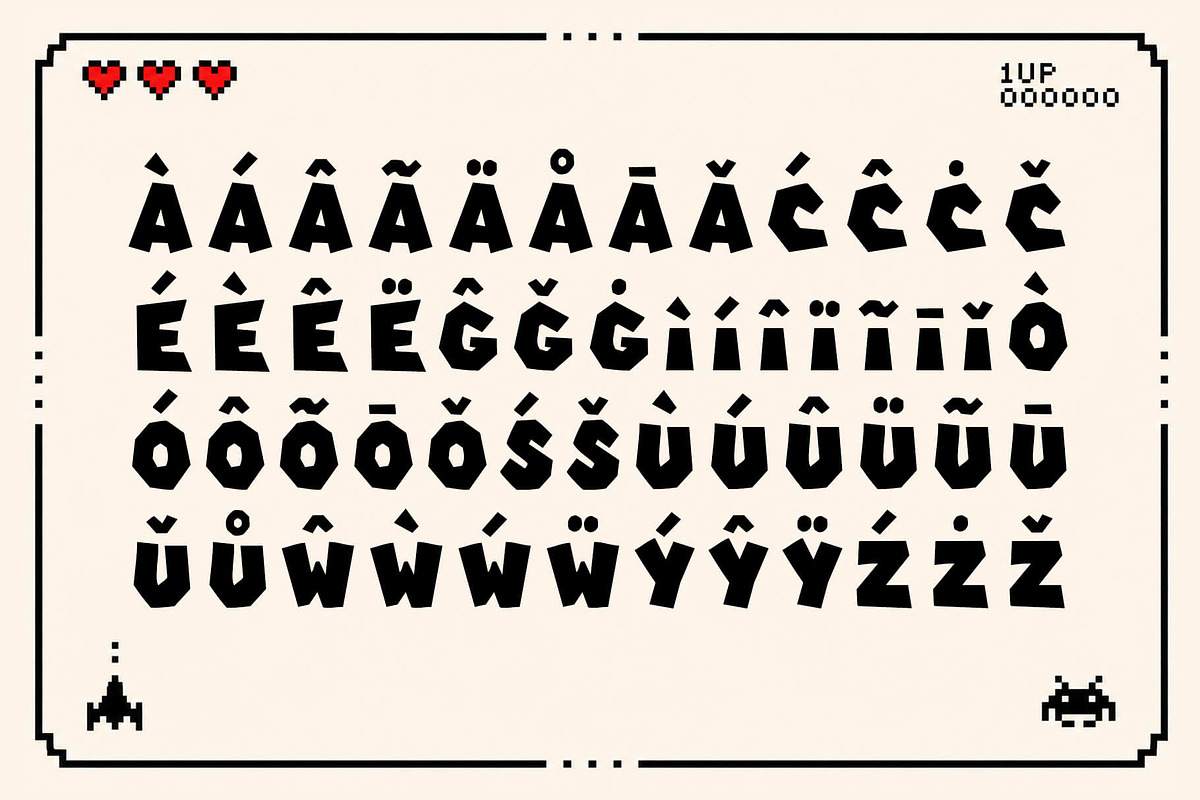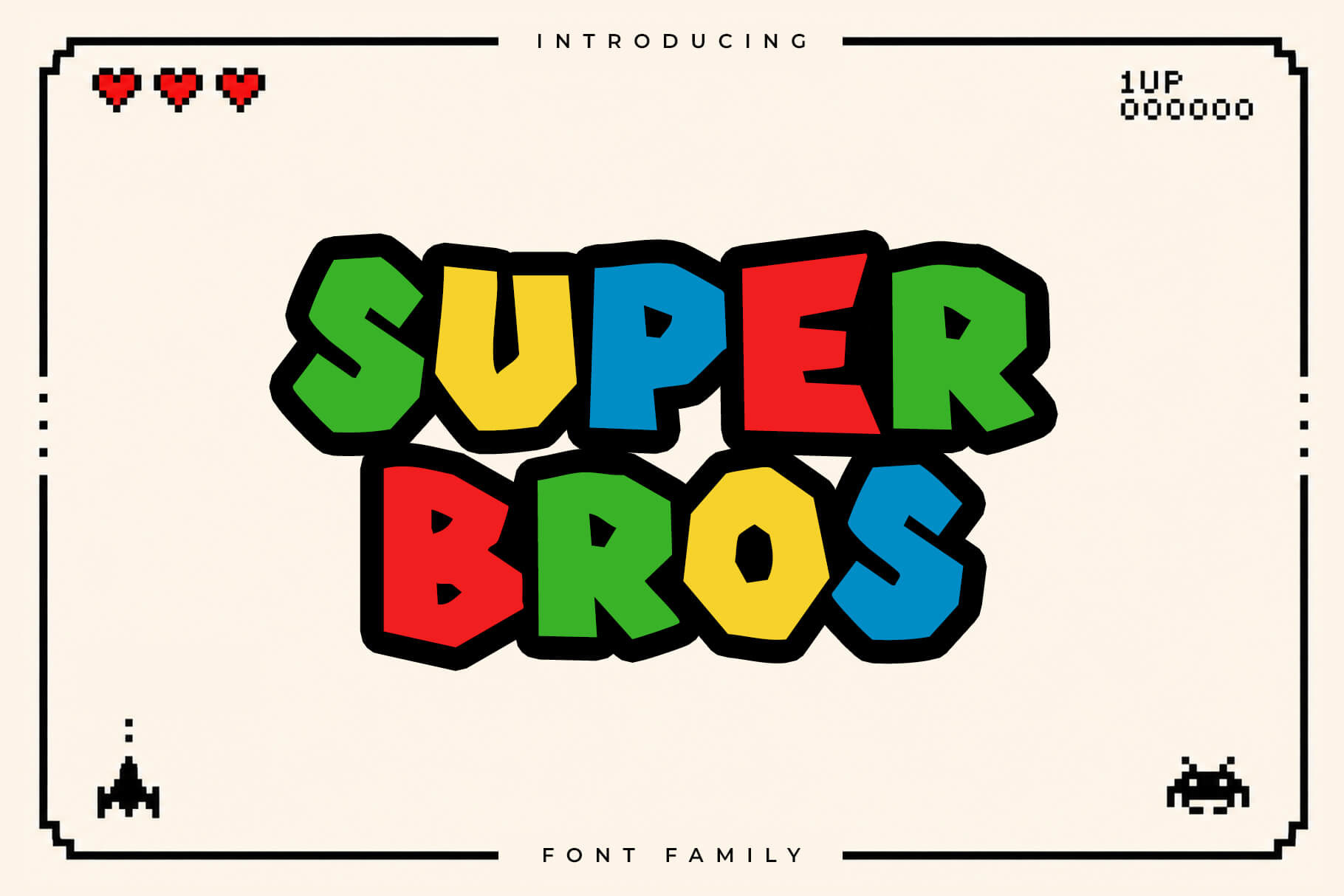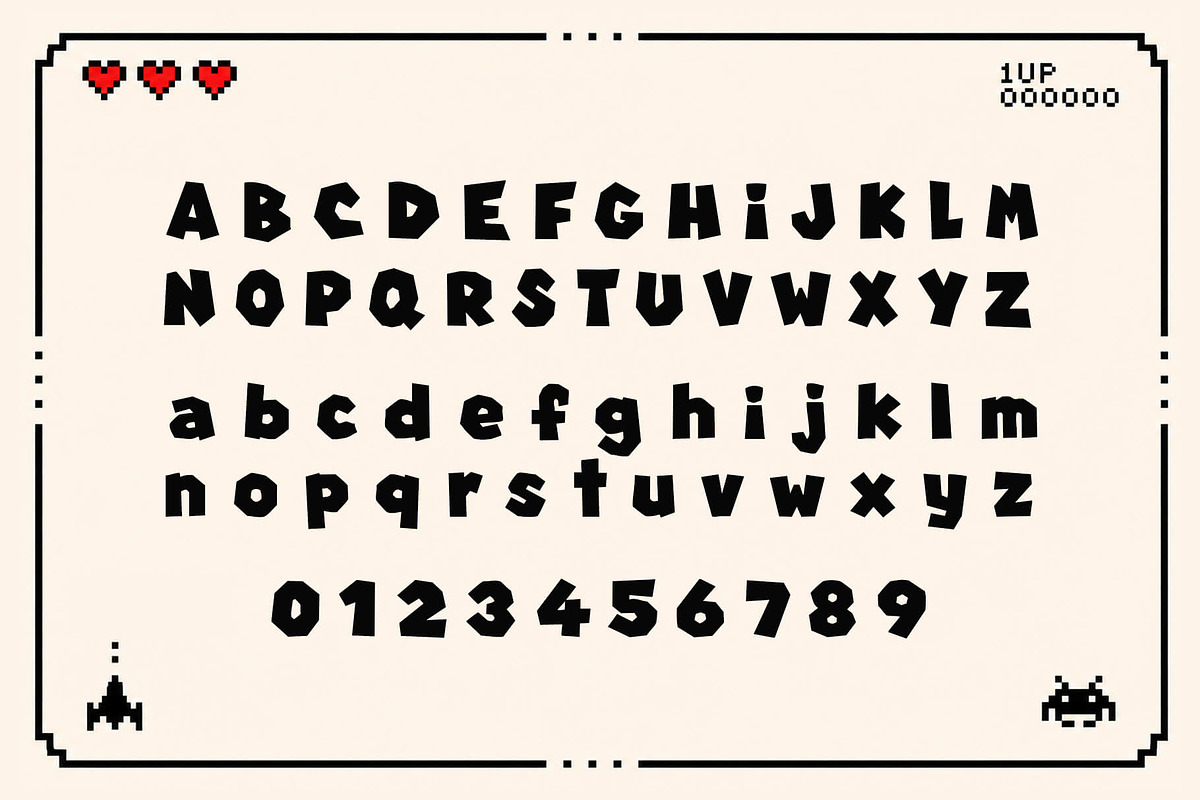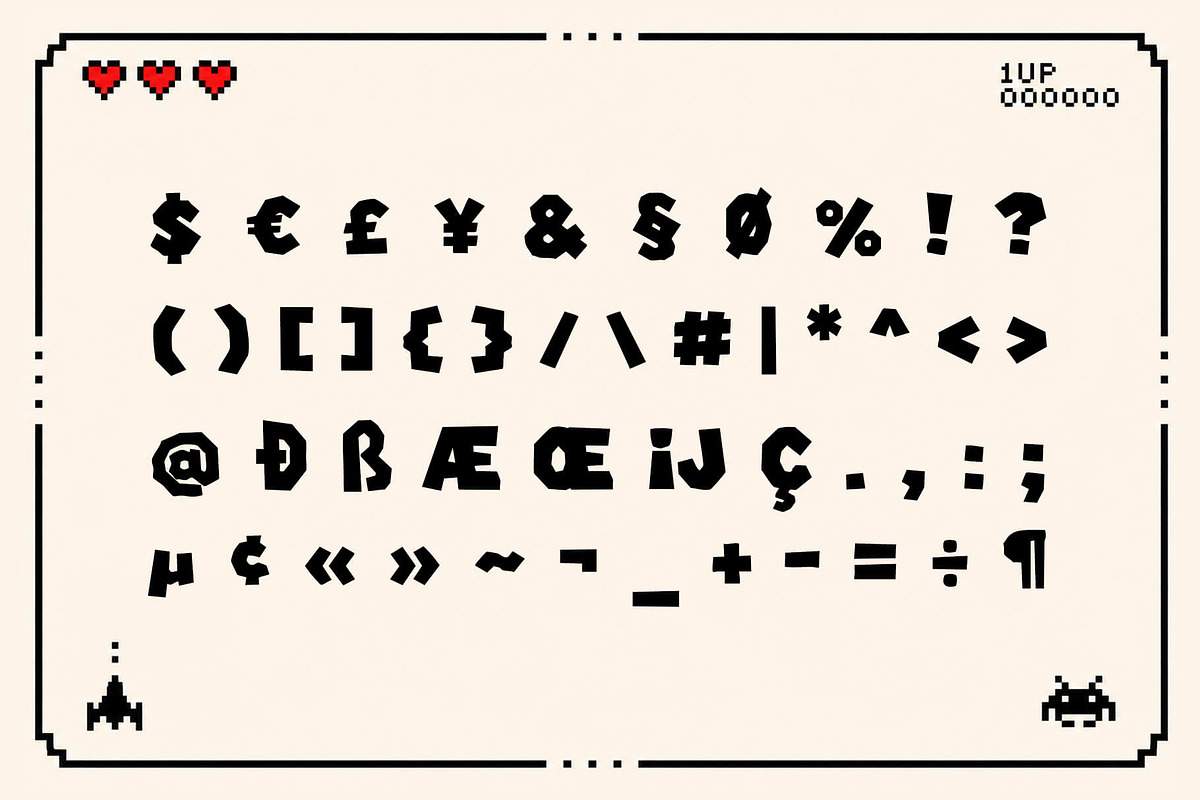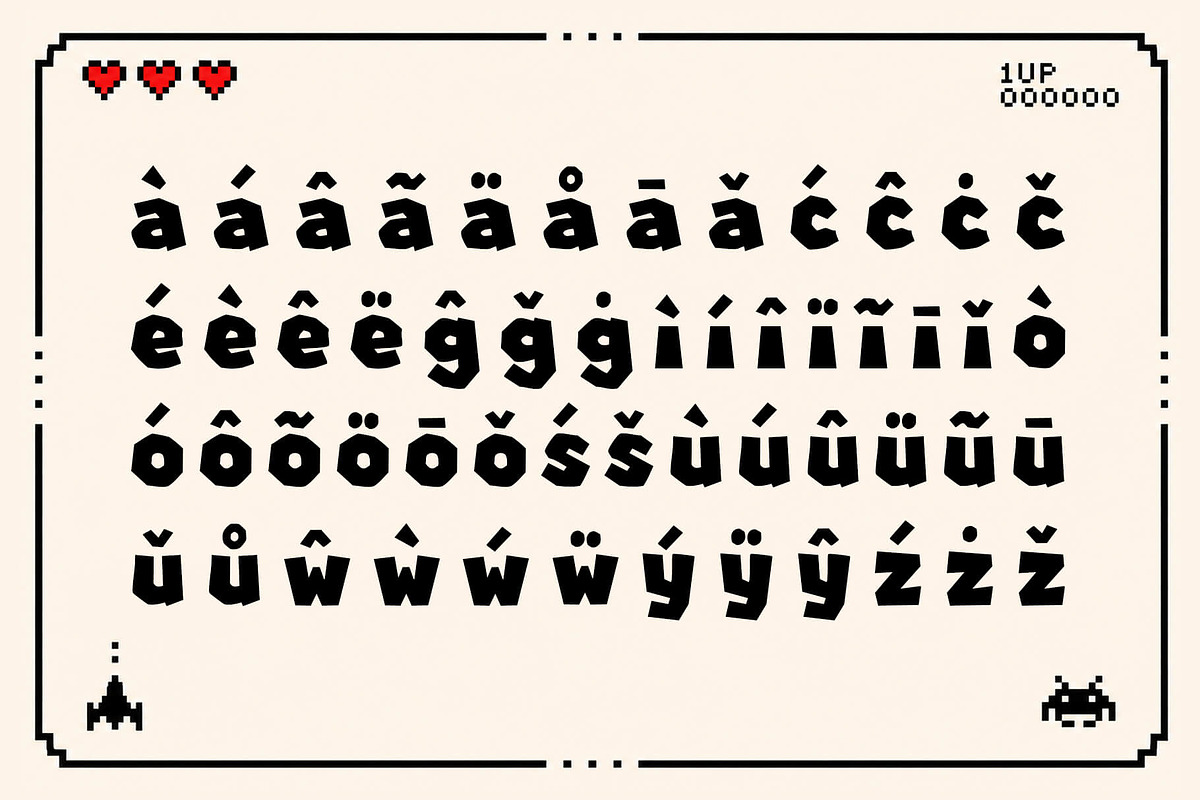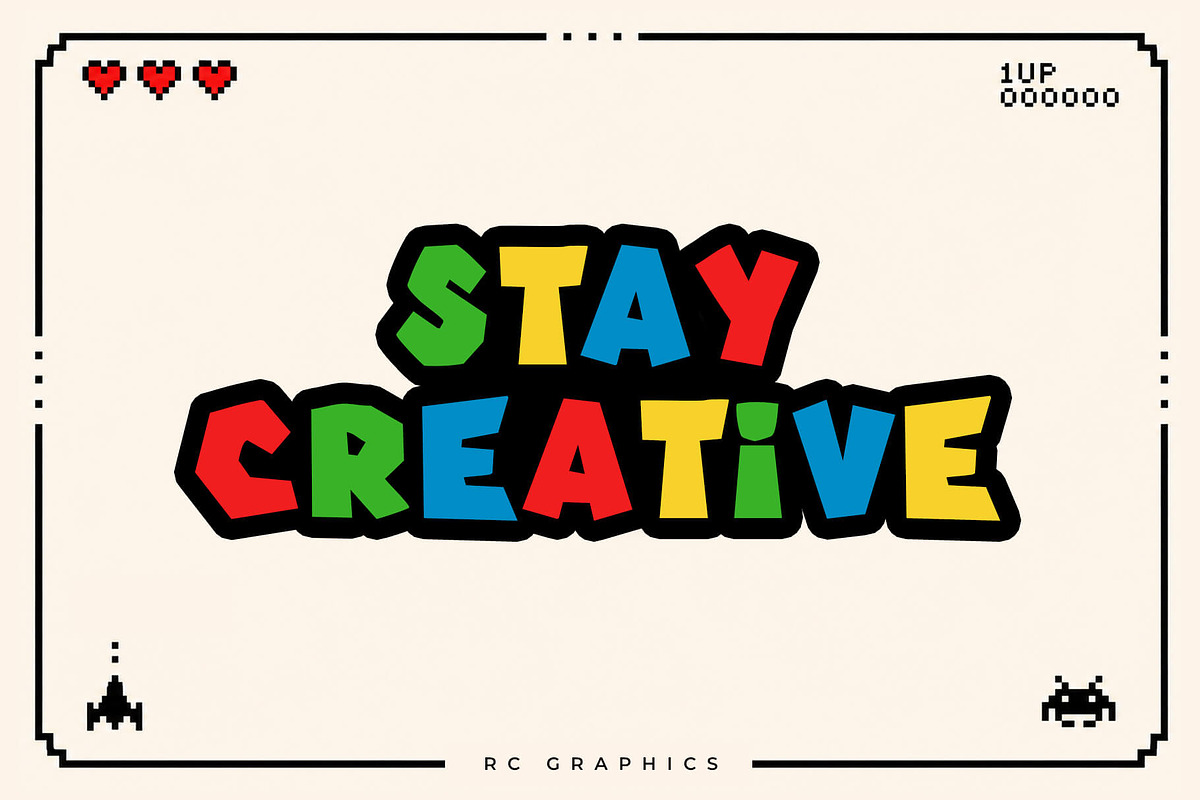
SuperBros - Bold Retro Display Font
SuperBros is an ultra-bold display typeface with an explosive personality, inspired by retro gaming, vintage comics, and 1970s–1990s graphic design.
With its massive, angular, and intentionally irregular letterforms, SuperBros instantly brings a strong visual personality to any design. Its deconstructed geometric shapes, sharp angles, and slightly unpredictable proportions create a distinctive hand-cut, handcrafted feel.
Sitting somewhere between arcade typography, comic-book lettering, and retro poster design, SuperBros is made to grab attention. Its heavy weight and compact silhouette make it especially effective for large headlines, logos, and graphic compositions where typography takes center stage.
Despite its bold and playful appearance, the typeface maintains a cohesive identity and excellent readability. Subtle variations between characters enhance its authentic handcrafted character, bringing to mind vintage video games, illustrated magazines, comic books, and old-school advertising.
Uppercase letters
Lowercase letters
Symbols
Accented characters
Multilingual (Foreign language characters)